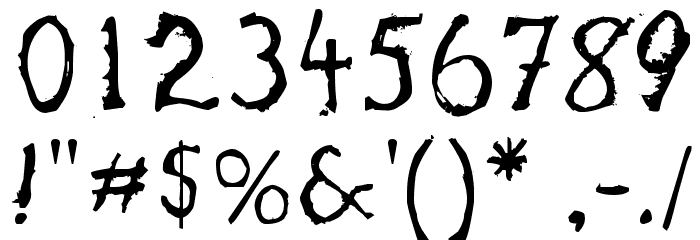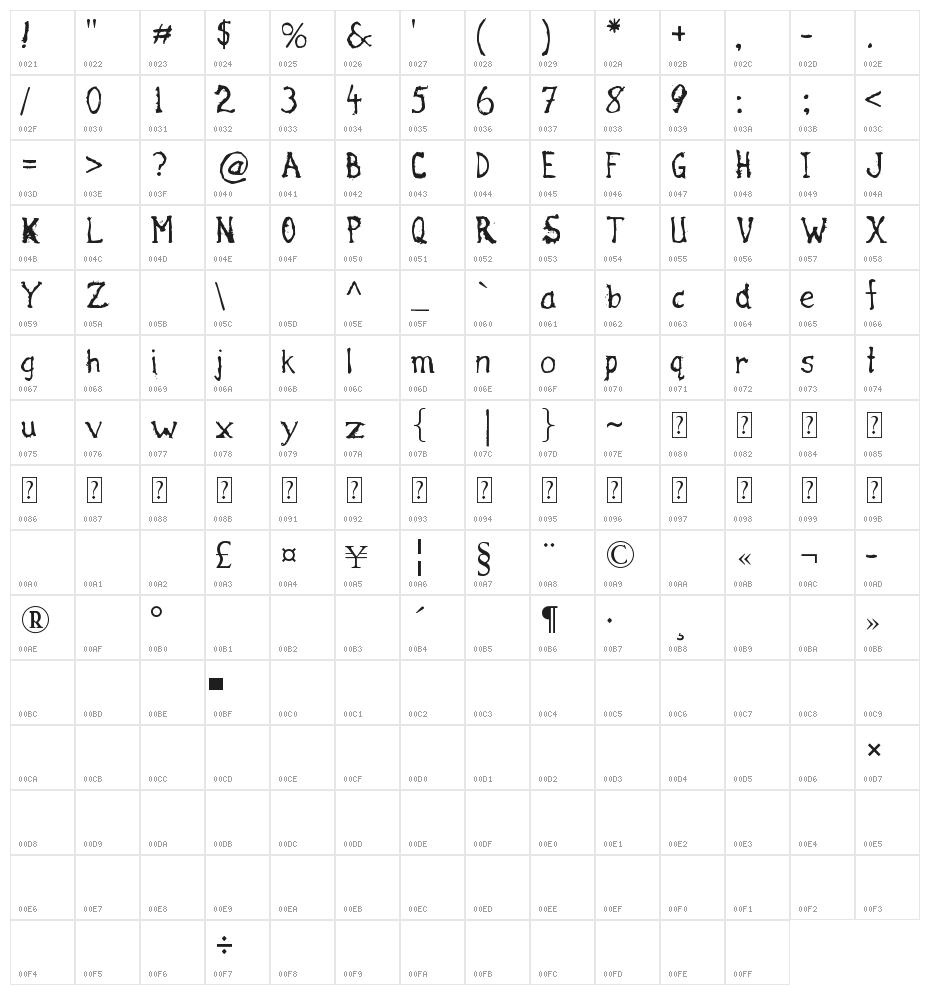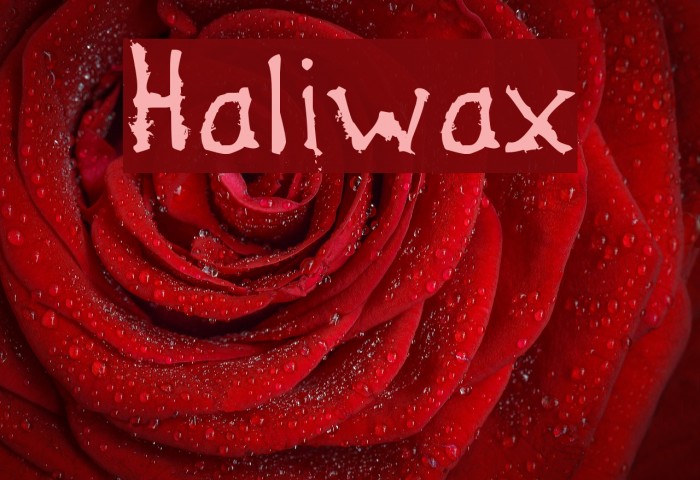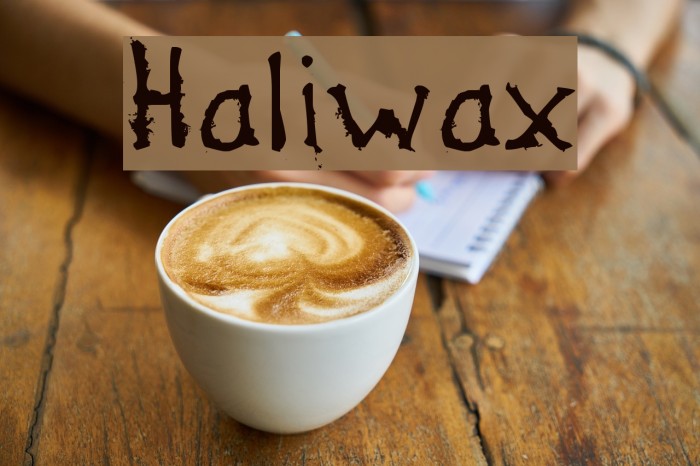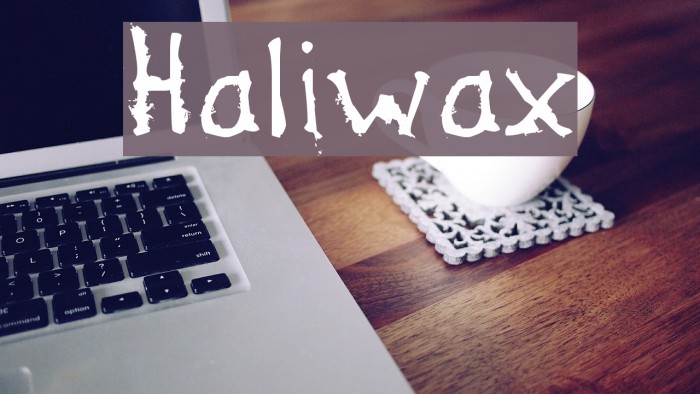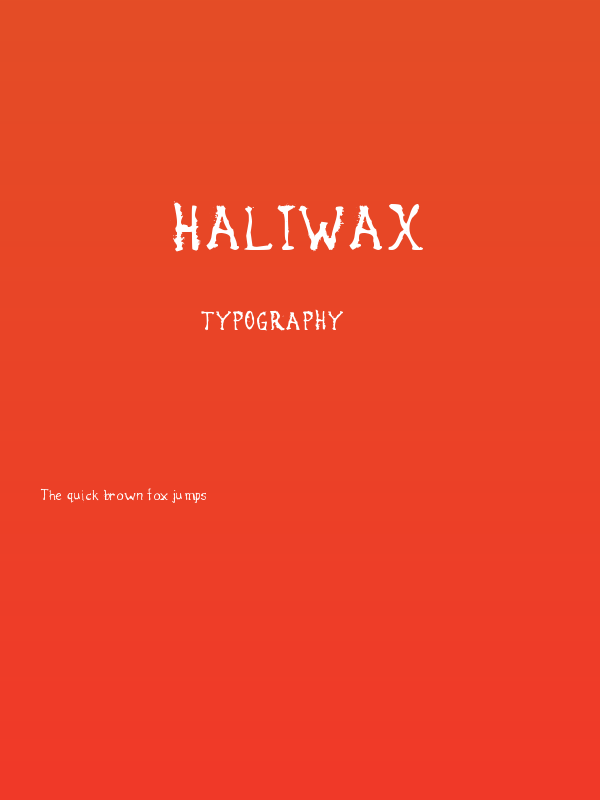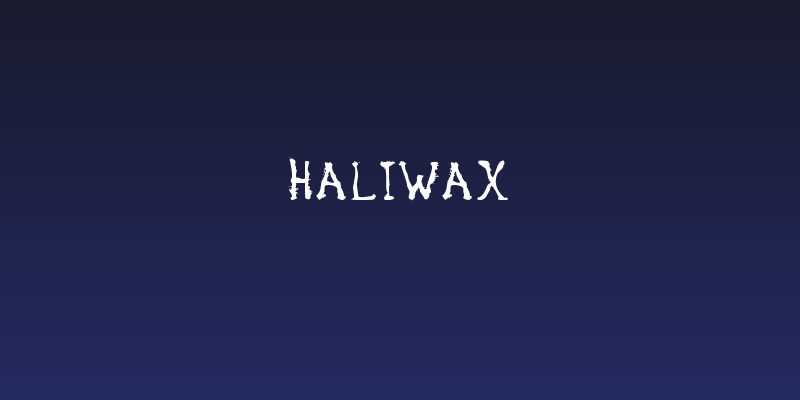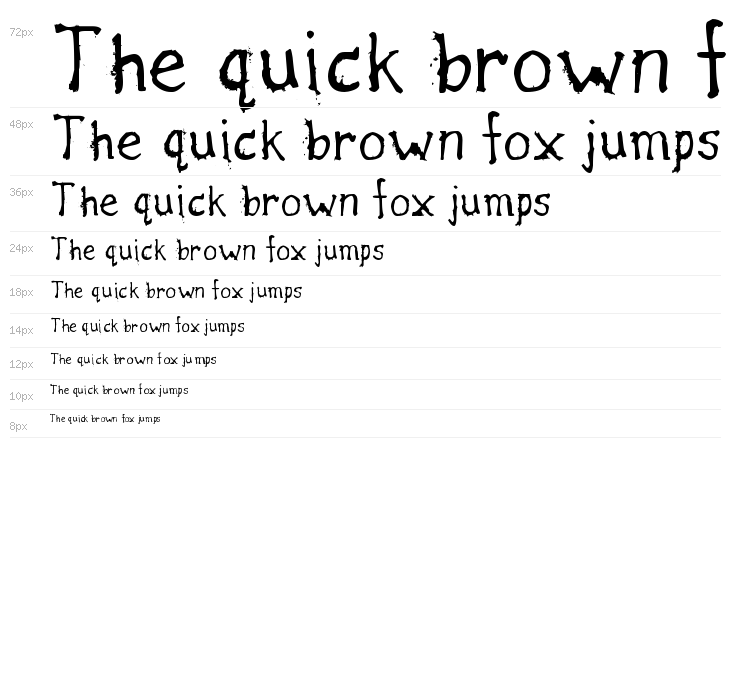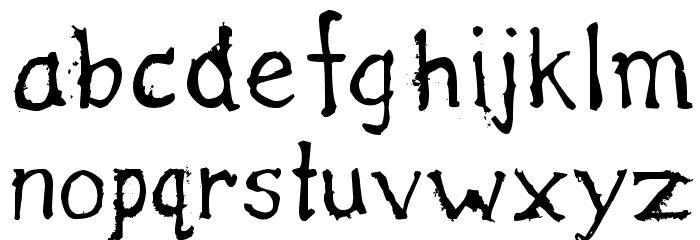
Haliwax Font
Haliwax Description
This font features a rugged, distressed appearance with uneven edges and a hand-drawn quality. The characters have a bold presence with irregular strokes that give a sense of movement and energy. The uppercase and lowercase letters maintain a consistent style, with some letters having unique, exaggerated forms that add to the font's distinctiveness. The numbers and special characters follow the same aesthetic, making the font suitable for creative and artistic projects. Its organic, textured look evokes a sense of vintage or grunge style, perfect for designs that require a raw, authentic feel.
| Overall Style | Vintage, Grunge |
| Proposed Projects | Ideal for posters, album covers, branding for artisanal products, or any project needing a grunge or vintage touch. |